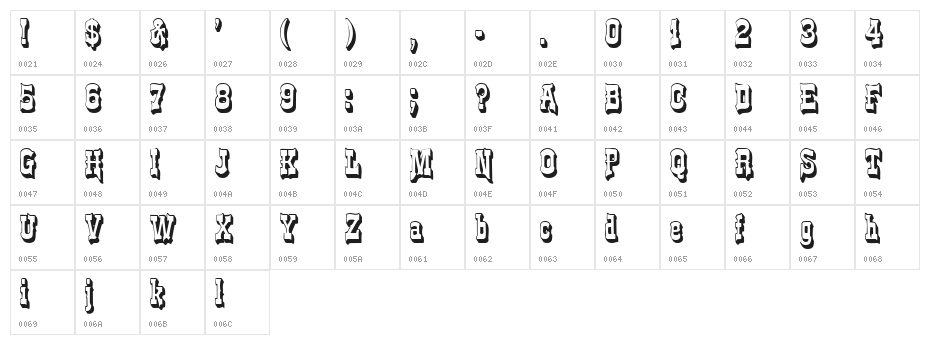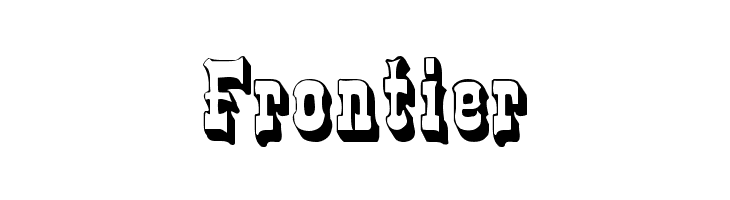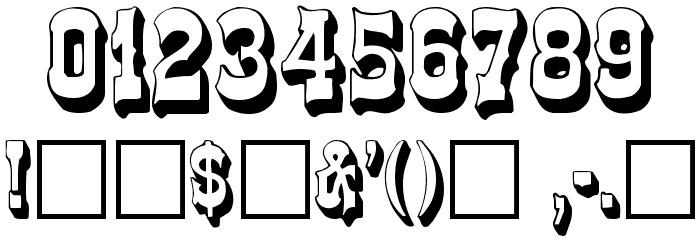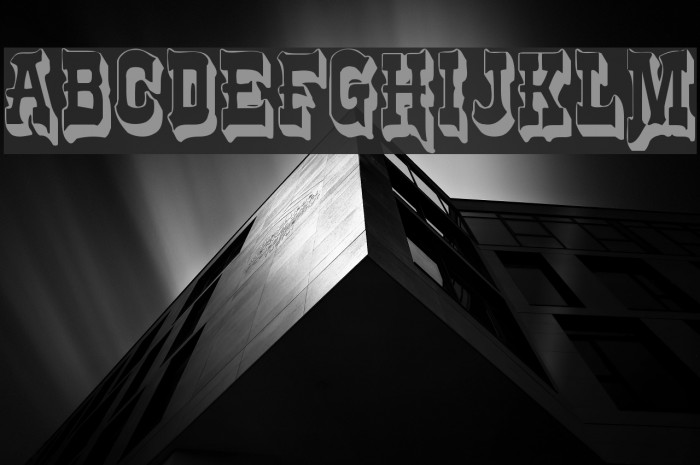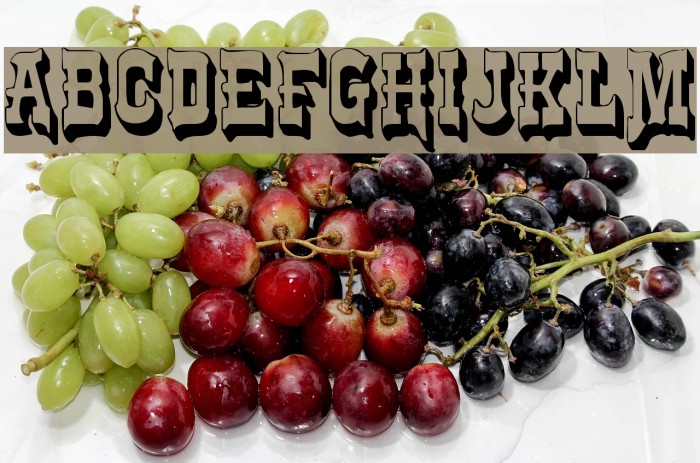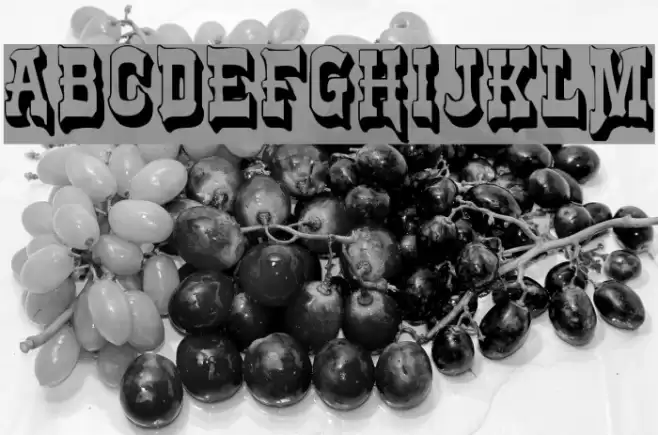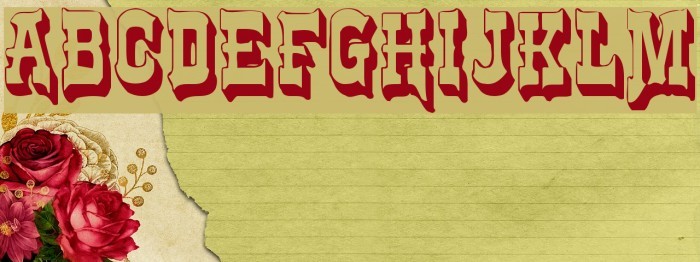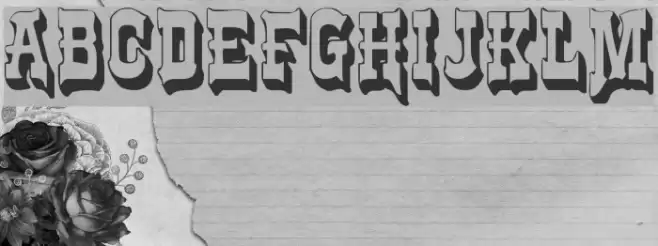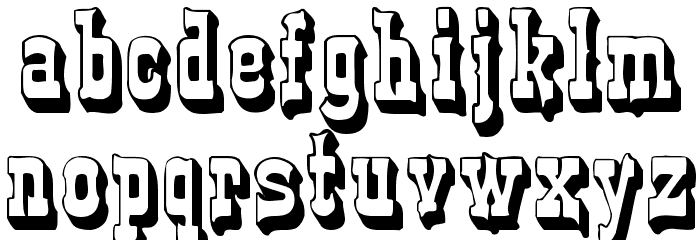
Frontier Font
Frontier Description
This font features a bold, decorative style with a strong 3D shadow effect that gives it a striking and impactful appearance. The characters are designed with sharp, angular edges and a robust presence, making them stand out prominently. The uppercase and lowercase letters maintain a consistent style, with the uppercase being slightly more pronounced. The numbers and special characters follow the same bold and shadowed design, ensuring uniformity across the font. This font's unique style is reminiscent of vintage Western or circus themes, making it ideal for eye-catching designs.
| Overall Style | Vintage |
| Proposed Projects | Perfect for posters, signage, branding, and any project requiring a vintage or Western aesthetic. |